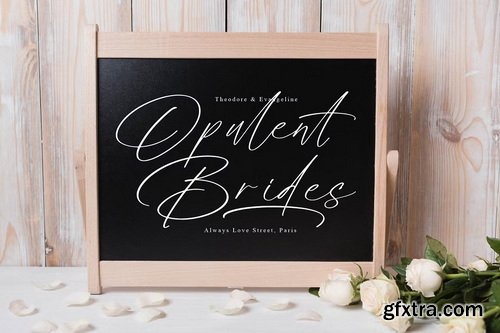
CreativeMarket - Radiance Berlines Script Font
Radiance Berlines - A Beauty Handwritten Script, from Operatype, perfect for any project like: logos, branding projects, homewares designs, product packaging, mugs, quotes, posters, shopping bags, t-shirts, covers books, business cards, invitation cards, greeting cards, labels, photography, watermarks, special events and all your other luxury projects that require a premium taste.